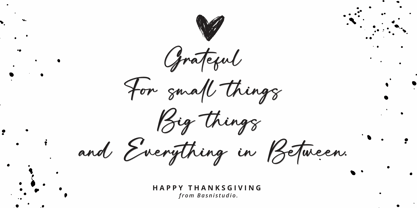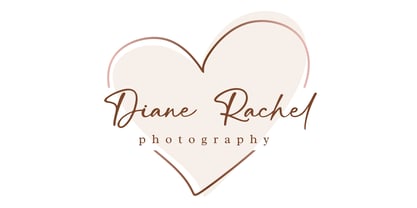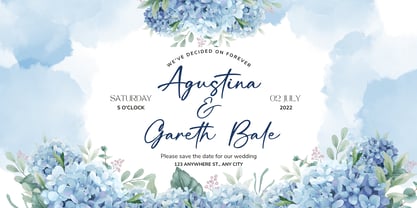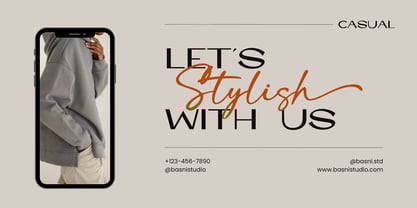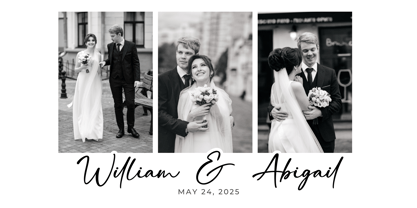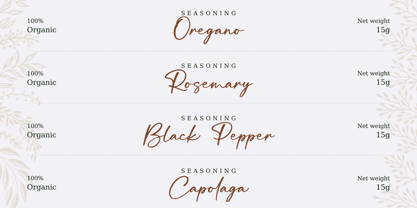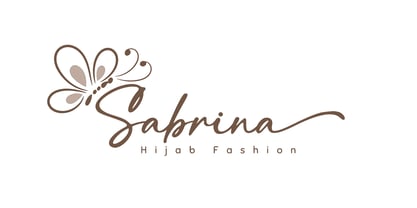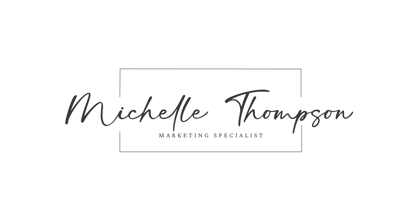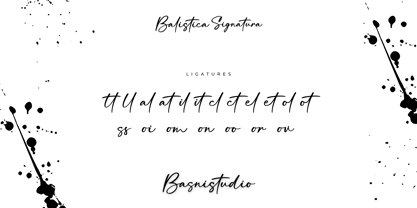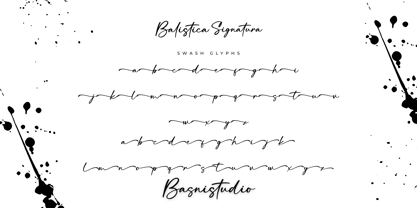
Balistica Signatura
The Balistica Signatura Font Family was designed by Bery Arisandi and published by Basnistudio. Balistica Signatura contains 1 styles.
The Perfect Handwritten Touch for Your Designs
Looking for a font that brings warmth, personality, and authenticity to your projects? Balistica Signatura a Elegant Script Font that adds a elegant, versatile touch to everything from branding and social media to invitations and packaging.
Elegant & Versatile – Perfect for logos, quotes, greeting cards, and more
Authentic Handwritten Feel – Created with real pen strokes for a natural look
Whether you’re building a powerful brand identity or crafting a standout logo, Balistica Signatura is a Elegant Script Font
gives you the creative edge you need.